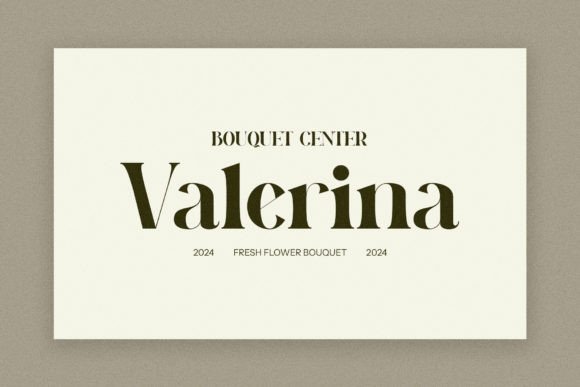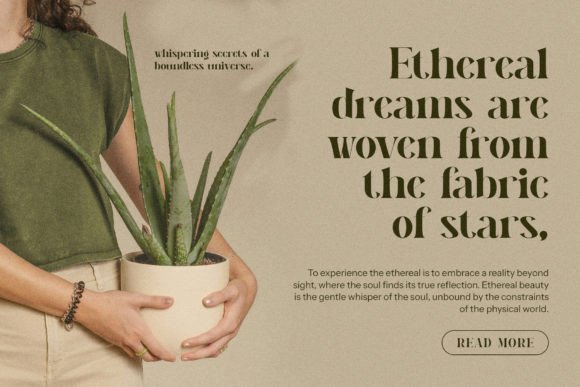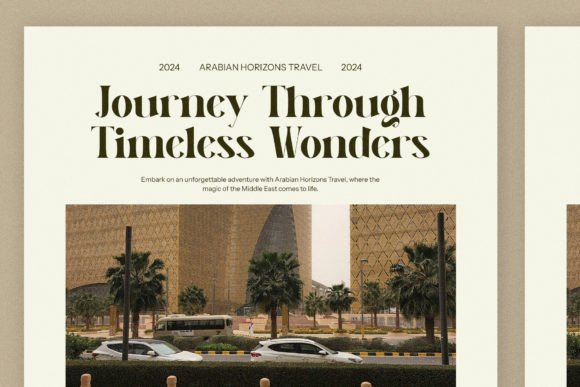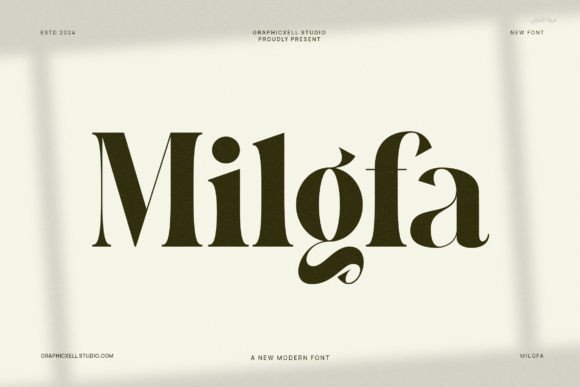
Introduction to Milgfa Font
Milgfa is a sophisticated ligature serif from us.
This typeface has been made carefully to make sure it is premium quality and luxury feel The ligatures make this typeface unique and stand out rather than the regular serif font.
Milgfa Font offers exceptional quality and versatility, making it a valuable addition to your design toolkit. Whether you’re creating for personal projects or commercial use, Milgfa Font delivers professional results.